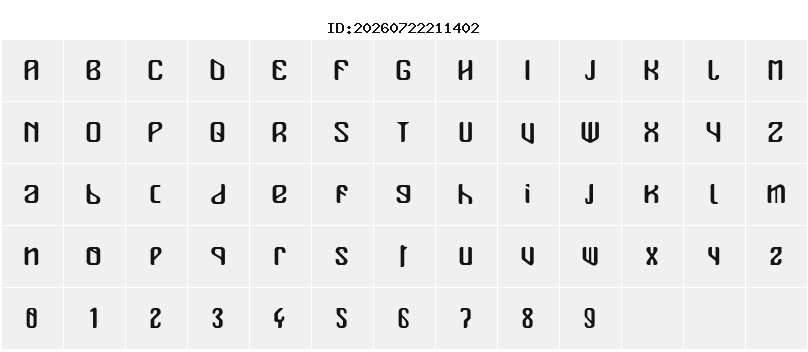
• Font Name: Mualk
• Full Font Name: Mualk
• Designer: Alberto Villanueva
About Mualk.ttf
Mualk.ttf is a modern, elegant sans-serif font designed for ultimate readability and visual harmony. Perfect for branding, headlines, web design, and print materials.